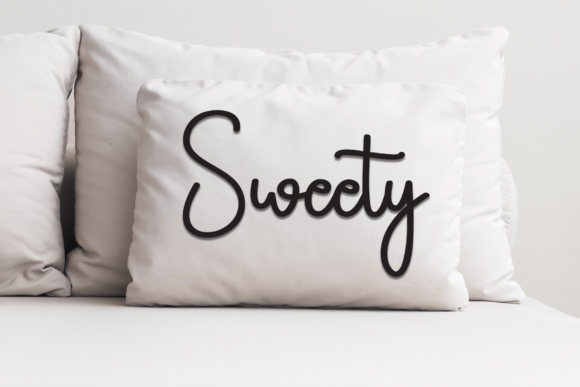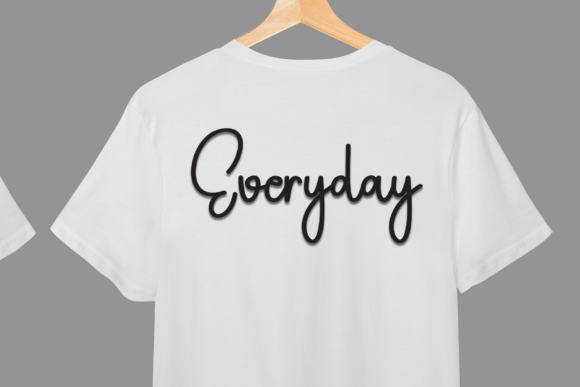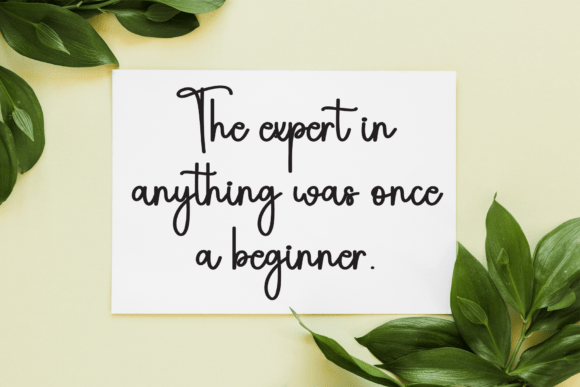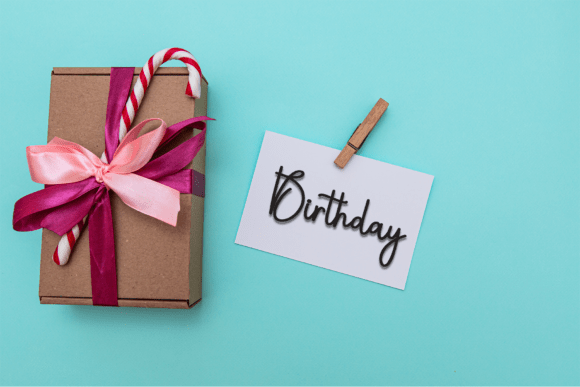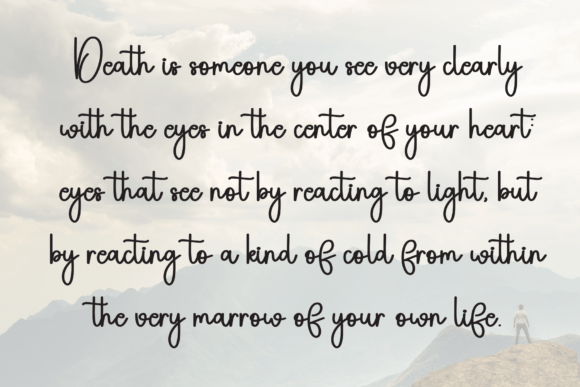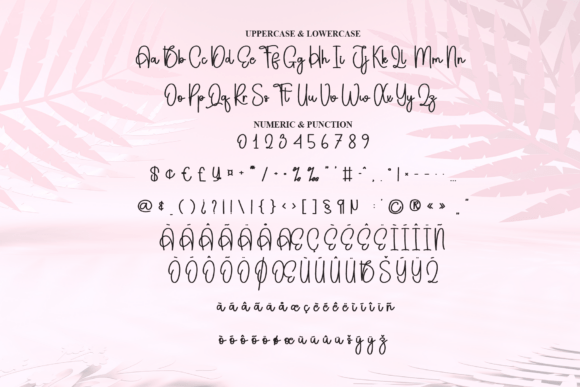
Unlocking the Art of Typography: The Beauty Font
As creatives, we’ve all been there – staring at a blank canvas, trying to bring a vision to life. The blank page can be intimidating, but what if you had the perfect tool to spark inspiration? For designers, the right font can make all the difference. Enter the Beauty Font, a stylish script font that exudes artistic flair and contemporary elegance.
This versatile font features fluid brush strokes, dynamic curves, and expressive letterforms, capturing the essence of hand-painted calligraphy with a modern twist. Whether you’re designing logos, invitations, packaging, or social media graphics, the Beauty Font adds a creative and sophisticated touch to any design. Its natural flow and vibrant character deliver both visual impact and versatility, making it a valuable addition to any designer’s toolkit.
Key Features of Beauty Font
- Font Style: Beauty Font is a elegant script font with a touch of sophistication, perfect for creating beautiful and luxurious designs.
- Unique Characteristics: Beauty Font features intricate flourishes and swashes, making it ideal for creating beautiful and eye-catching designs.
- Language Support: Beauty Font supports a wide range of languages, including Latin, Cyrillic, and Greek alphabets, making it a versatile choice for designers.
Beauty Font Review
Overall, I think Beauty Font is a decent choice for designers looking for a clean and elegant font. Here are some things that work well:
- ✨ Beautifully crafted letterforms that are both modern and classic
- ✨ Excellent legibility, making it perfect for body text and titles
- ✨ A wide range of weights and styles, giving designers plenty of options for customization
However, I do think there are some limitations:
- ⚠️ Limited support for languages other than English and a few European languages
- ⚠️ Some users have reported issues with font rendering on certain platforms
- ⚠️ Not as versatile as some other fonts in terms of bold and italic styles
Overall, I think Beauty Font is a solid choice for designers who want a clean and elegant font for their projects. While it may have some limitations, its strengths make it a great option for many use cases.
Beauty Font is ideal for use in fashion, beauty, and lifestyle design projects. It’s perfect for creating eye-catching headings, titles, and body text for websites, social media, and marketing materials.